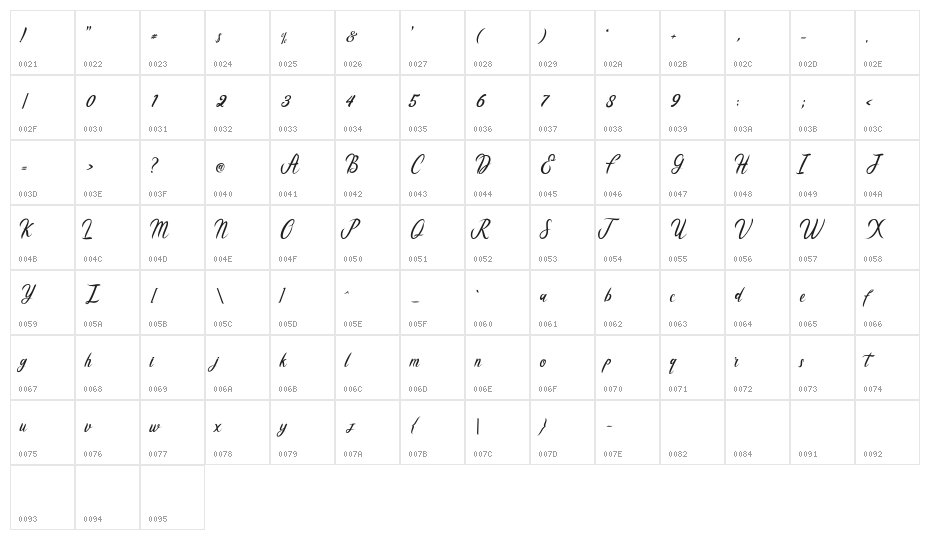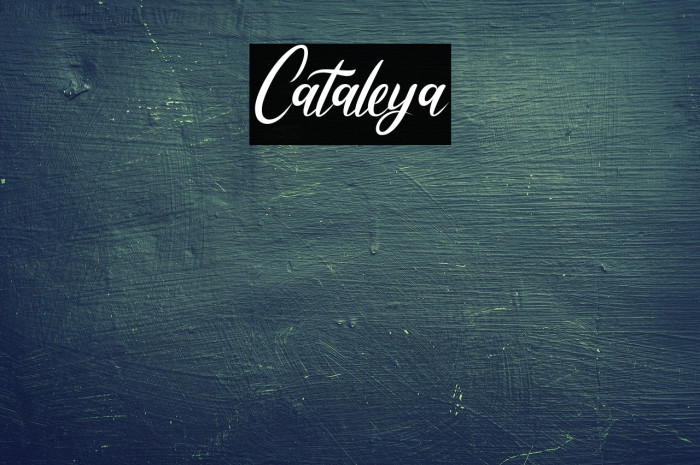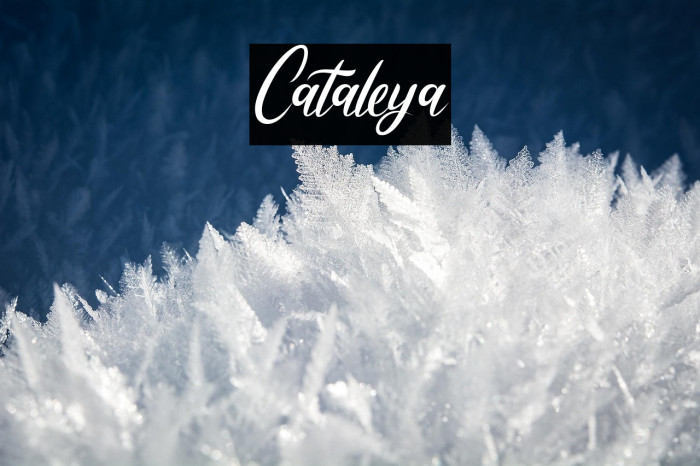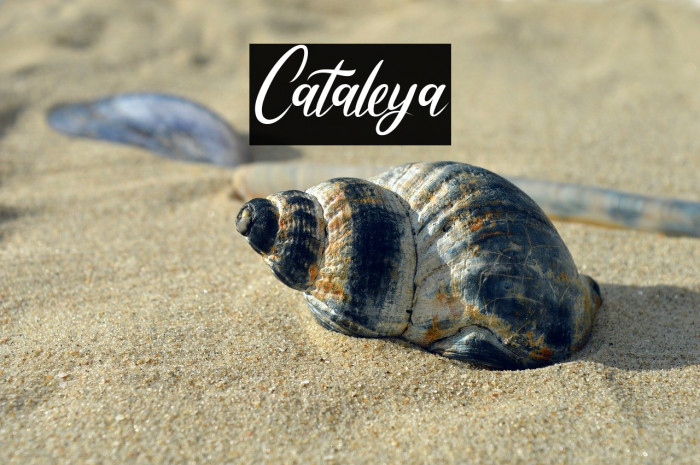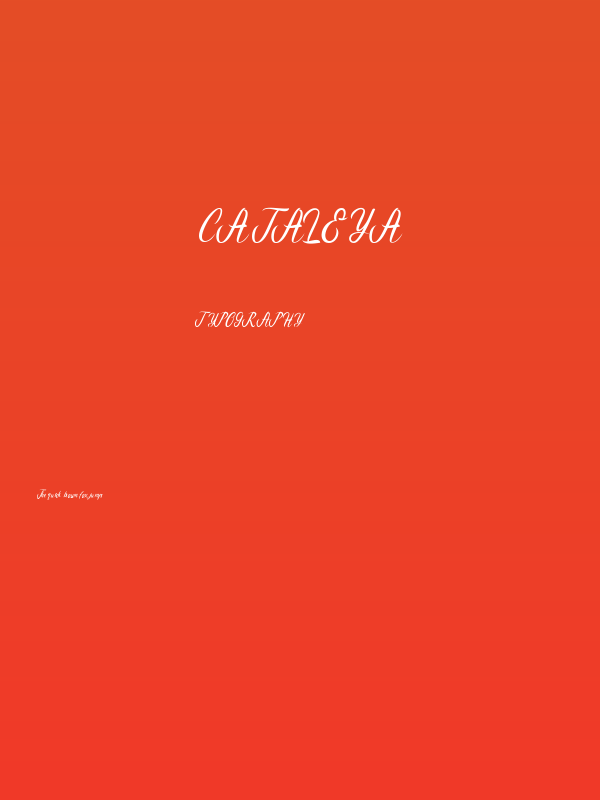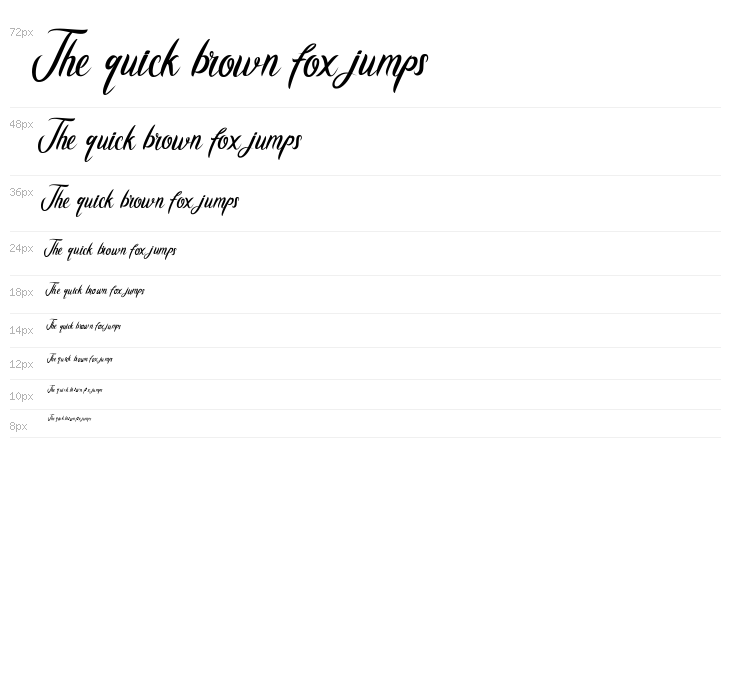
Cataleya Font
Cataleya Description
This elegant script font features flowing, cursive letterforms with a graceful and sophisticated appearance. The uppercase letters are characterized by sweeping curves and flourishes, while the lowercase letters maintain a consistent slant and fluidity. The numerals and special characters are designed to complement the overall style, adding a touch of refinement. The font's high contrast between thick and thin strokes enhances its readability and visual appeal, making it suitable for a variety of design applications. Its decorative nature lends itself well to projects that require a touch of elegance and class.
| Overall Style | Elegant, Decorative |
| Proposed Projects | Wedding invitations, luxury branding, greeting cards, elegant packaging, and formal event materials. |